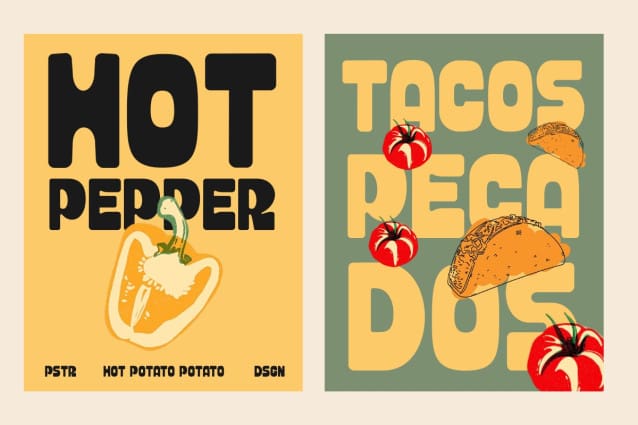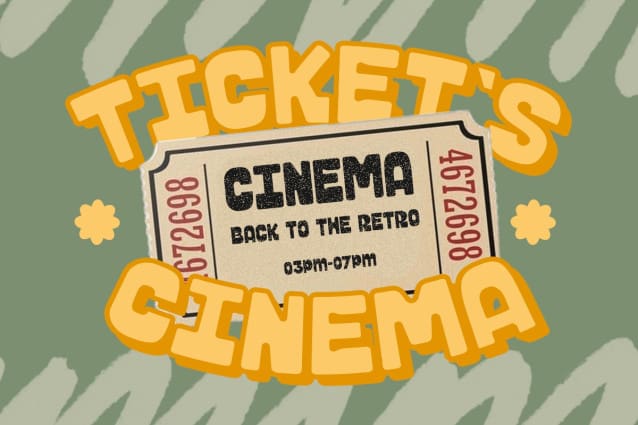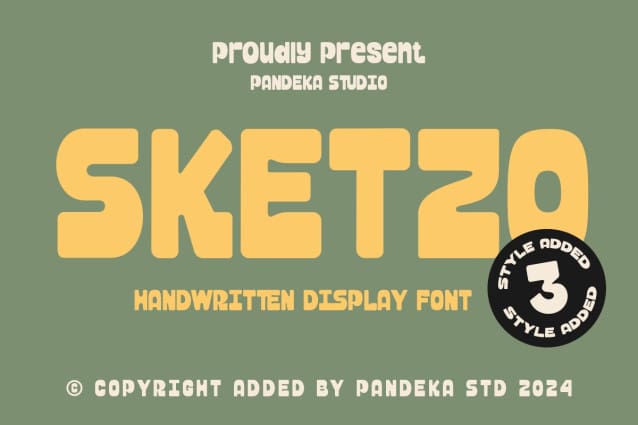
Sketzo Display Font
Sketzo Display Font, a handwritten display font full of character and charm! This font comes with 3 styles: Regular, Outline, and Shadow, making it versatile and perfect for a variety of creative projects.
Designed to mimic the fun and lively strokes of hand-drawn sketches, Sketzo brings a playful and creative vibe to your designs. With its natural texture and organic flow, this font feels personal, approachable, and ideal for designs that need a friendly and unique touch.
Whether you’re working on children’s books, posters, packaging, branding, or any creative project that needs a burst of energy, Sketzo has got you covered. Its versatility and boldness make it the perfect choice for adding personality to your designs.